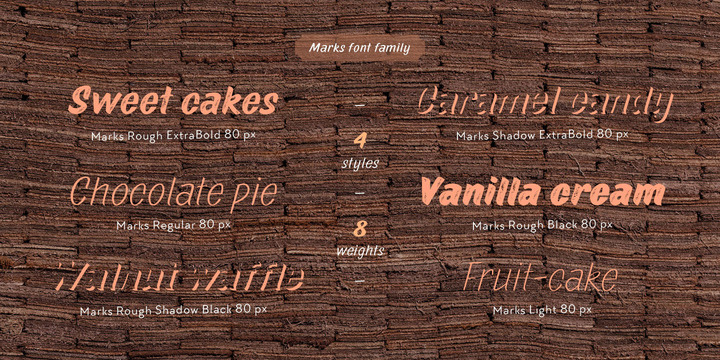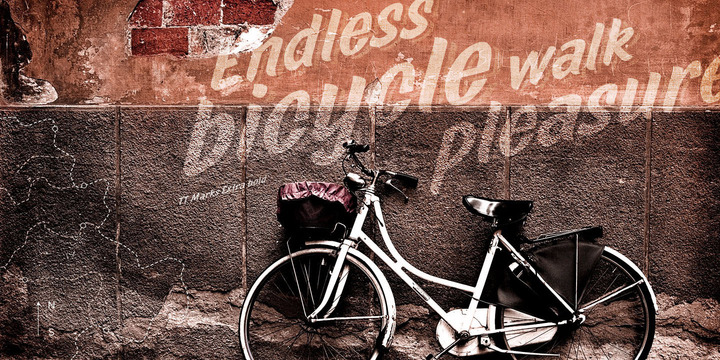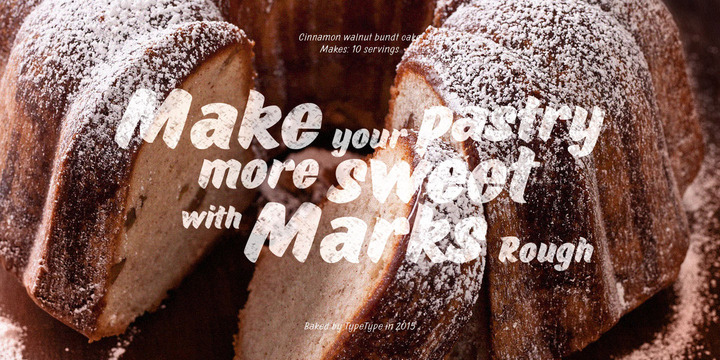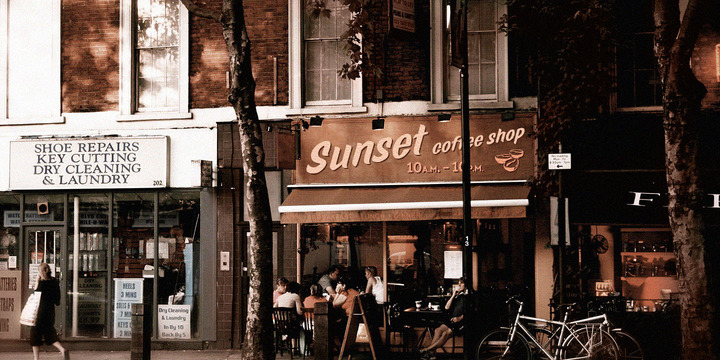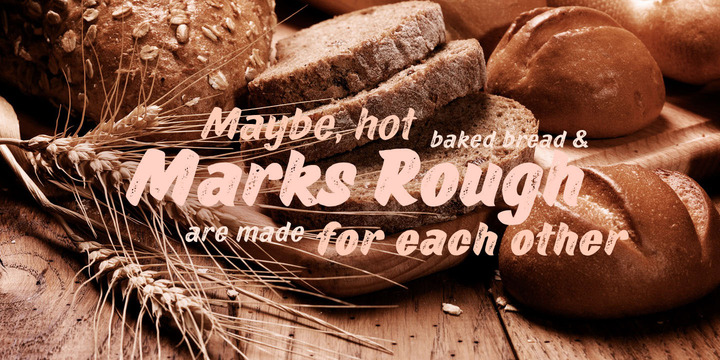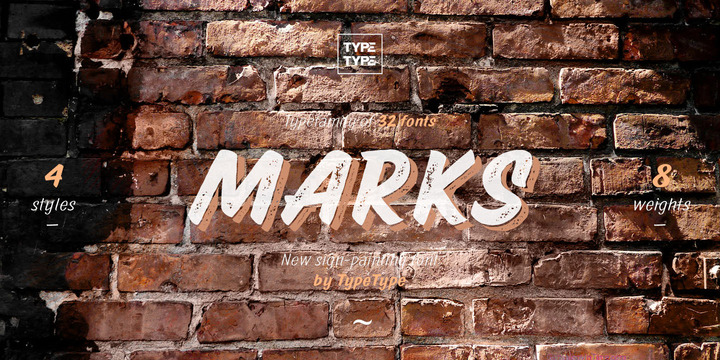
TT Marks Font Family
Marks was created in the style of a traditional American Sign Painting. Sign Painting is the art of painting on buildings, billboards and signage for the purpose of announcing or advertising of products, services and activities.